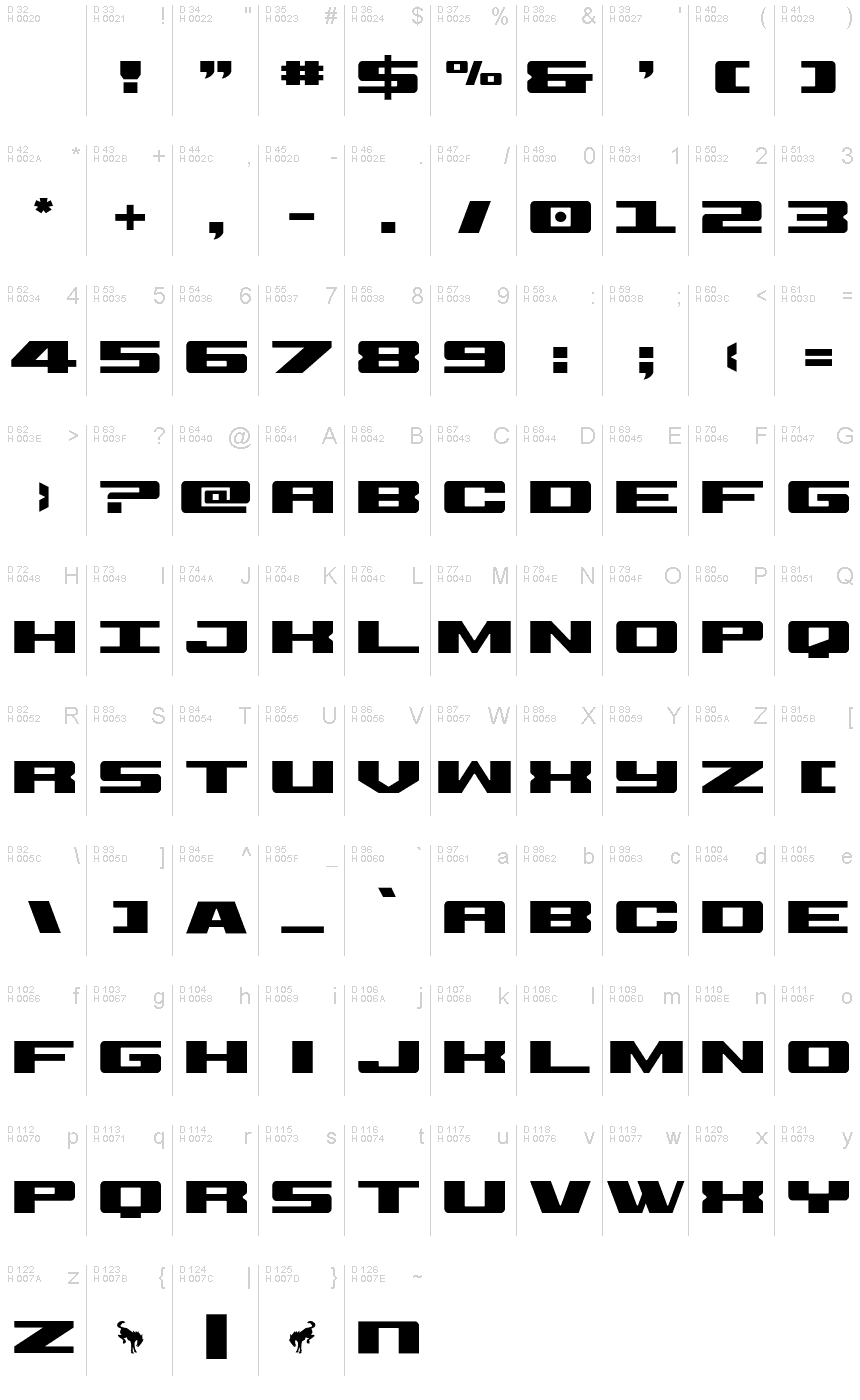
Buckin' Bronc
Buckin' Bronc by Iconian Fonts is a display typeface that packs a punch with its extra-bold, techno style and extra-expanded width. This powerhouse font commands attention, embodying the raw energy of a wild stallion in digital form. Its striking presence makes it an ideal choice for projects that require a modern edge—from gaming interfaces to futuristic branding.
Buckin' Bronc's robust character set ensures versatility across various creative endeavors, while its distinct silhouette guarantees that your message will stand out in any digital rodeo.